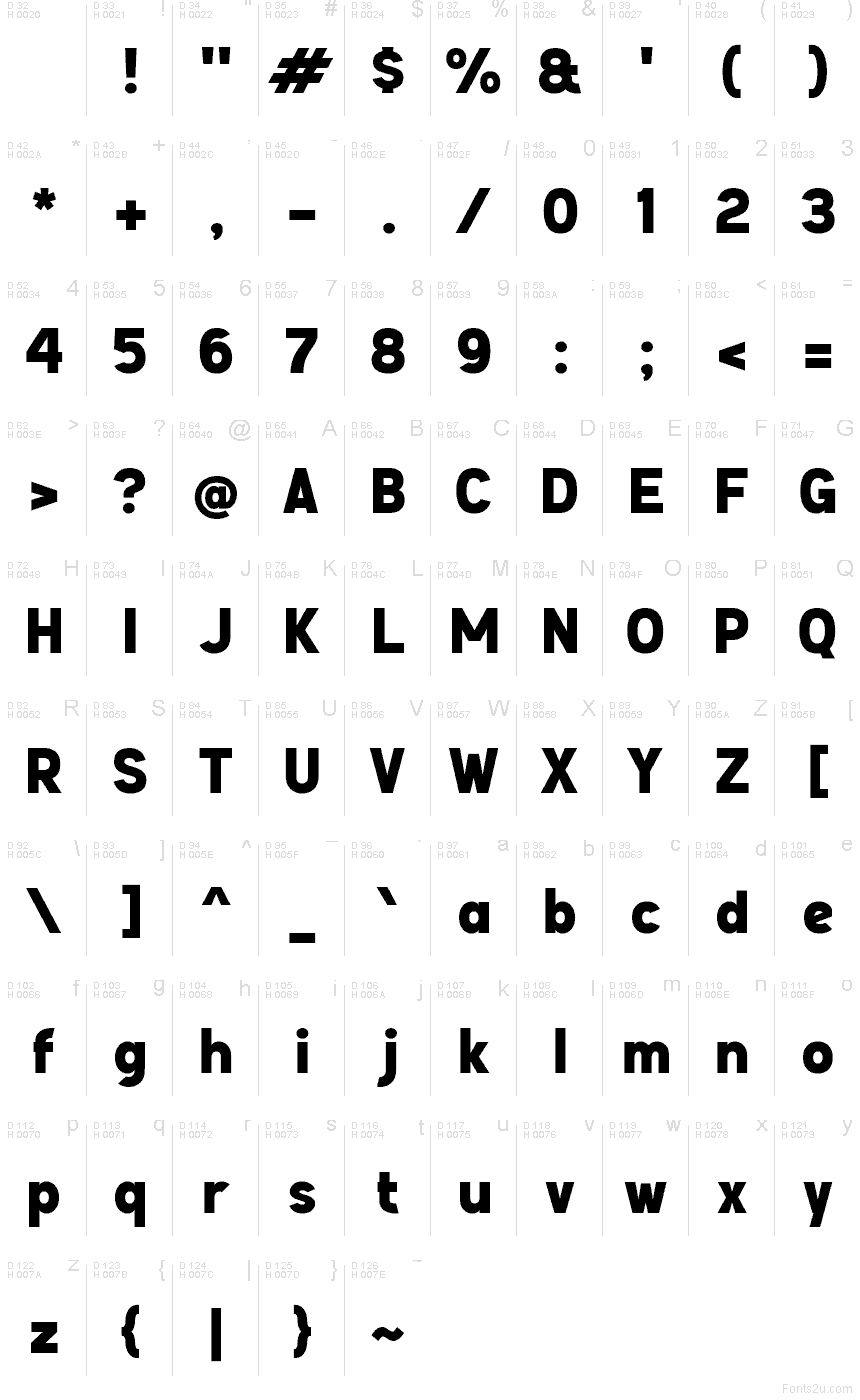
Saade Sans
Saade Sans font by wepfont.com is a free rounded sans serif typeface that hits that sweet spot between bold impact and easy readability. Its heavy weight, broad curves, and tightly tucked counters give it a chunky, almost rubbery feel that jumps off the screen without turning aggressive. The smooth, even strokes keep text clear at a glance, so big titles feel friendly rather than shouty.
Using Saade Sans, you get a workhorse for logos, social media graphics, posters, banners, thumbnails, and bold website headers. This free font shines on branding that needs to feel confident yet approachable—think tech startups, kids’ products, or casual food spots. Pair it with a simple, light-weight sans for body copy and let Saade Sans handle the loud, attention-grabbing moments.